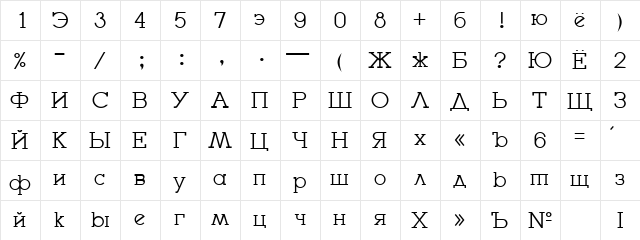
Stargorod Regular
Design Context for Stargorod Typeface
Stargorod takes a measured approach to typography — its balanced proportions and neutral character make it a reliable workhorse for both digital and print work.